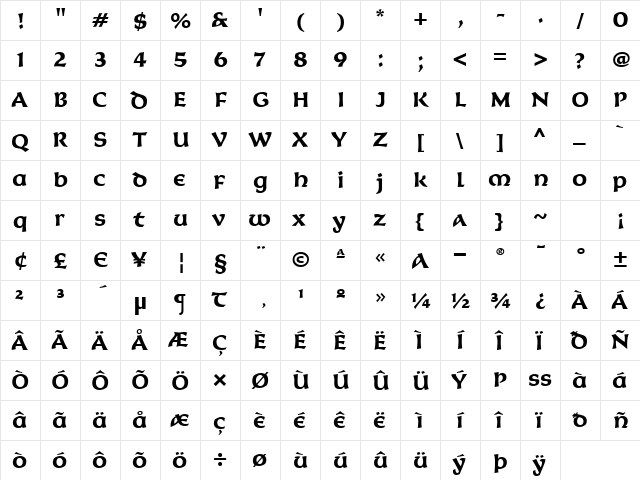
KoriganITC TT Bold
Design Context for KoriganITC TT Typeface
KoriganITC TT is a composed and adaptable typeface that performs quietly and consistently across a wide range of design contexts. Its bold stroke weight gives it real presence on the page.